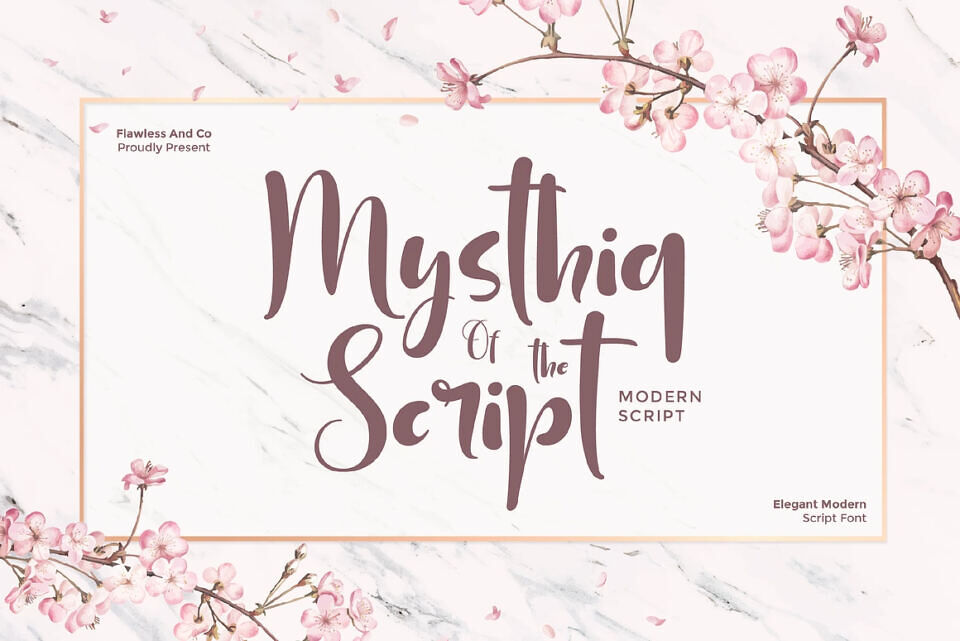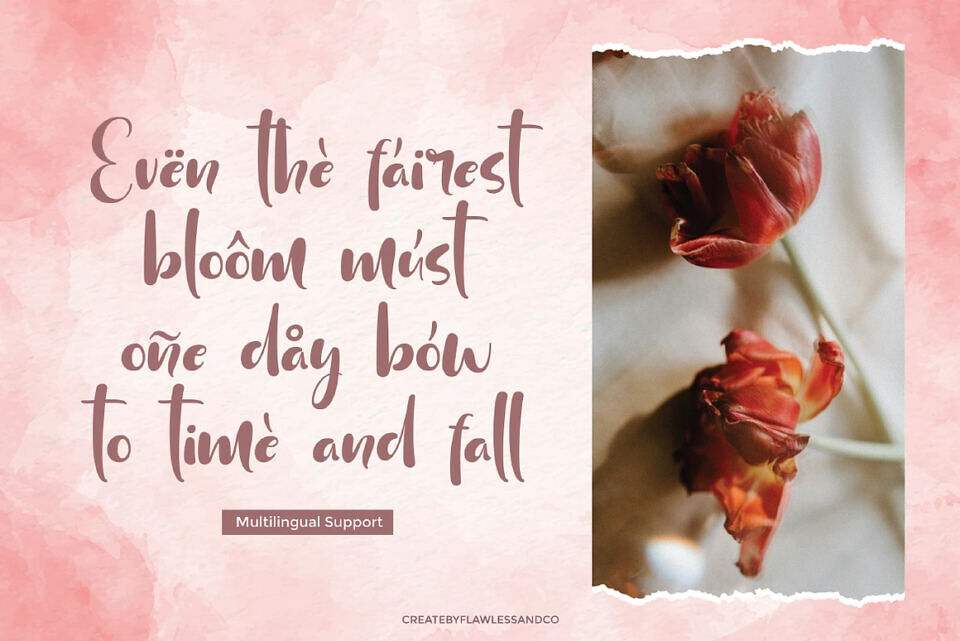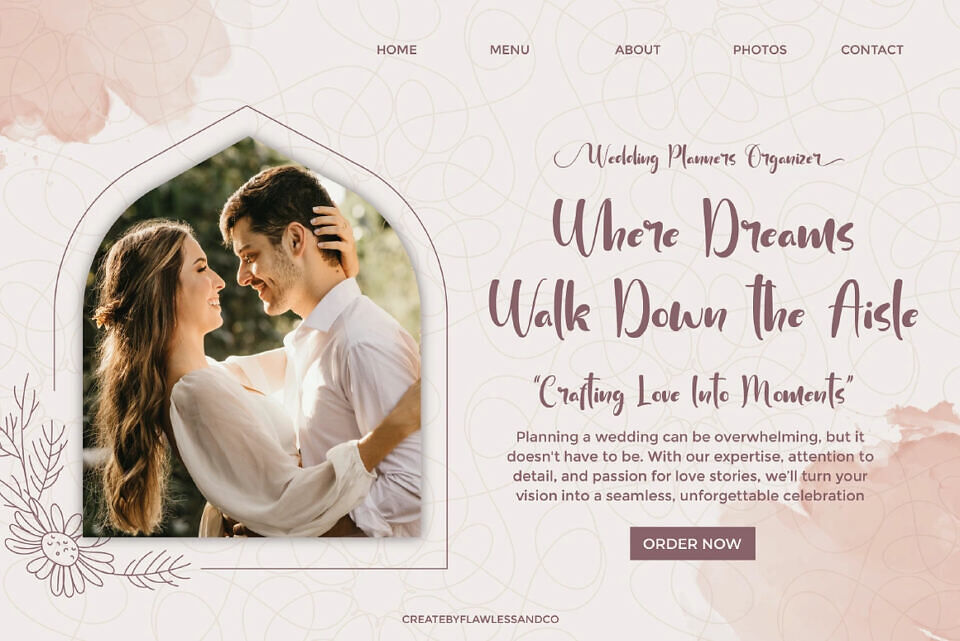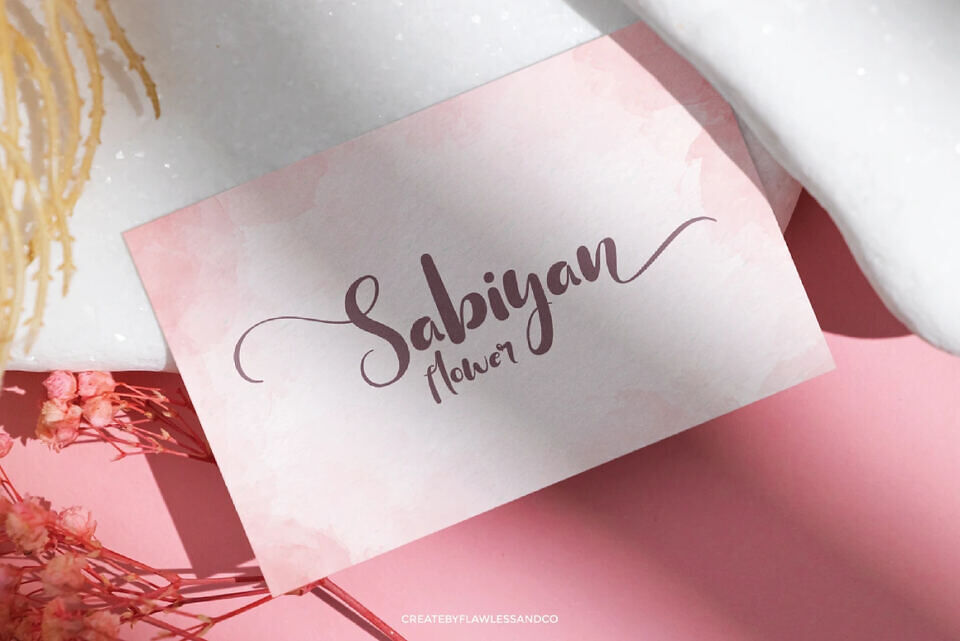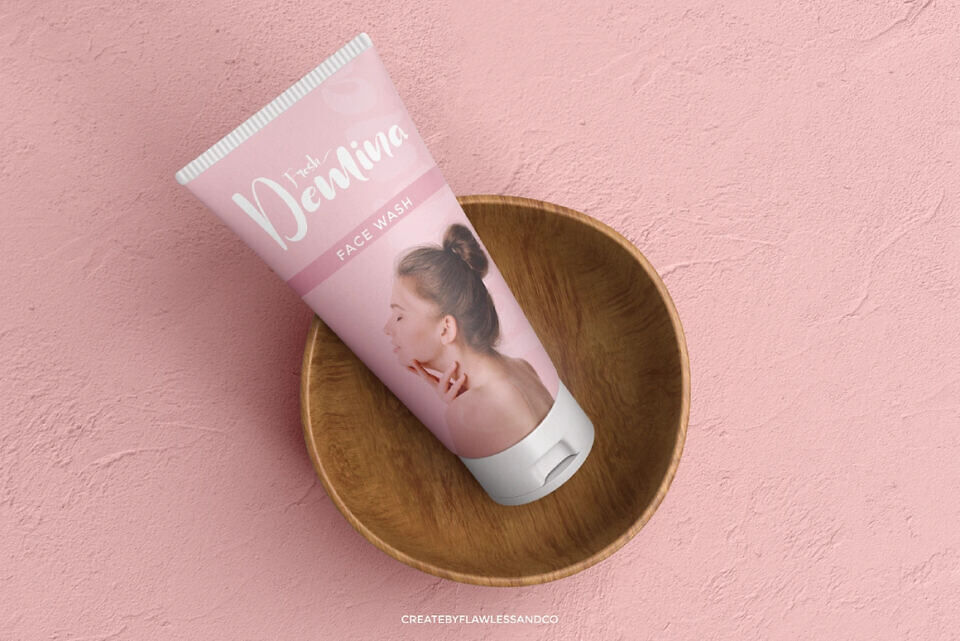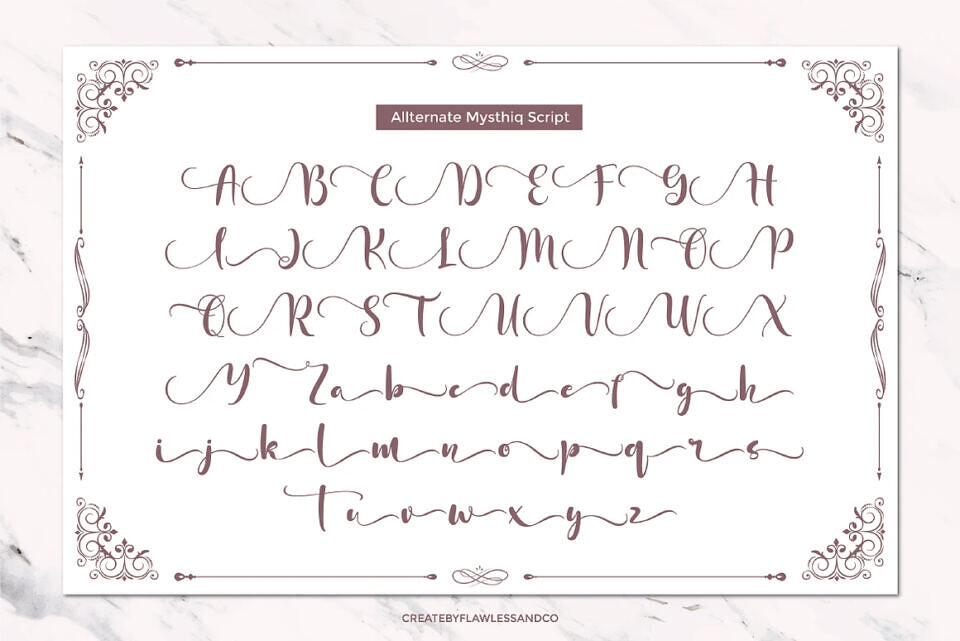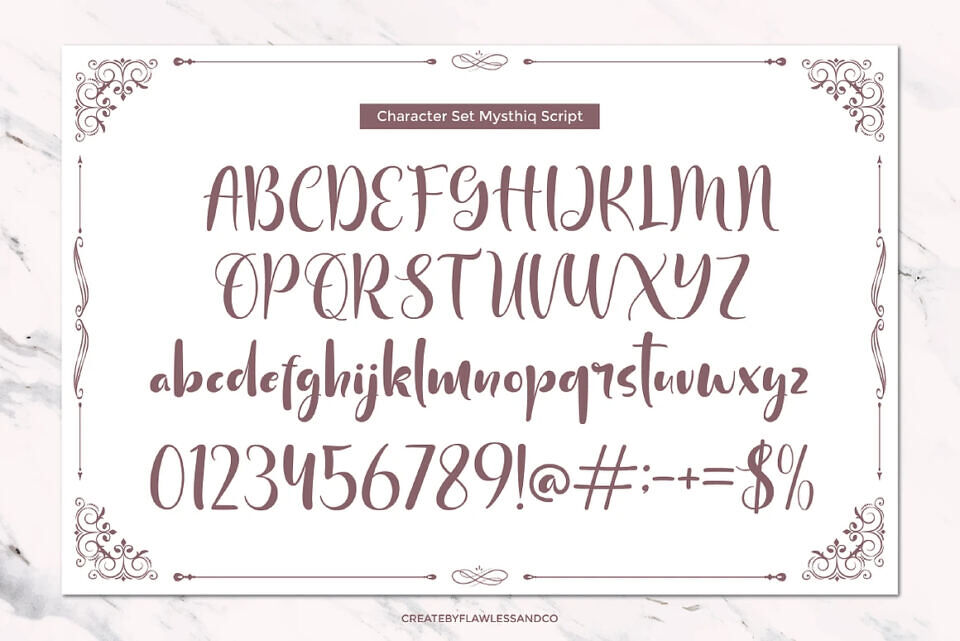
Mysthiq Font
Mysthiq is an elegant and stylish modern script font designed to bring a perfect blend of sophistication and creativity to your designs. With its graceful curves and contemporary feel, Mysthiq captures attention effortlessly while maintaining a timeless charm.
Whether you’re crafting wedding invitations, luxury branding, product packaging, or editorial designs, Mysthiq adds a refined personal touch that elevates your project. Its versatile letterforms are perfect for both large, bold headlines and delicate, intricate details.